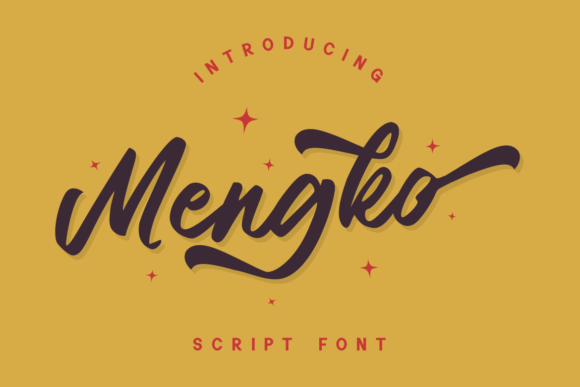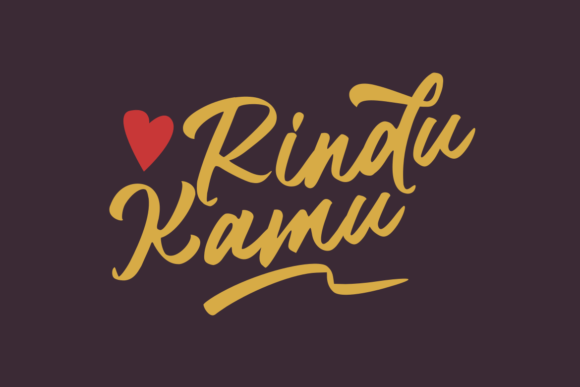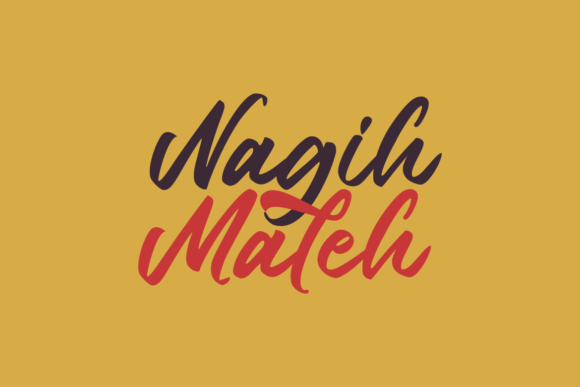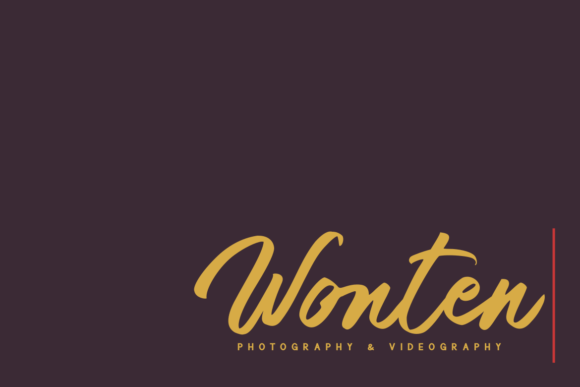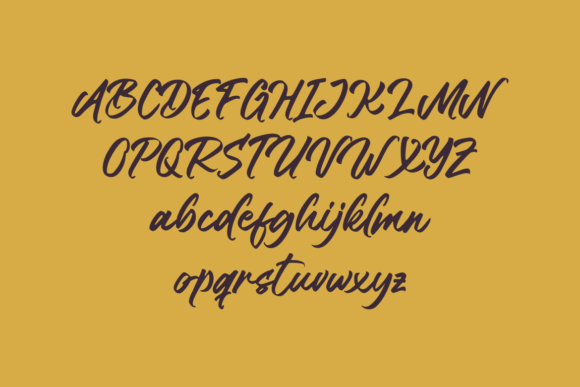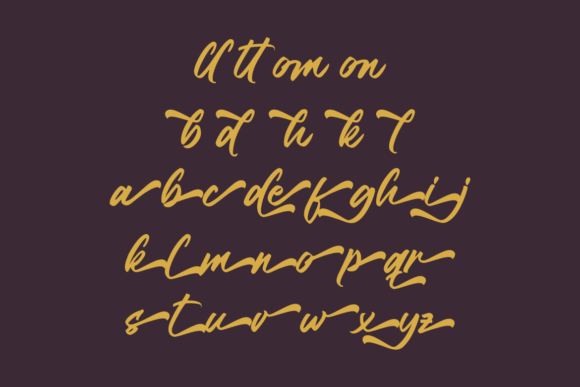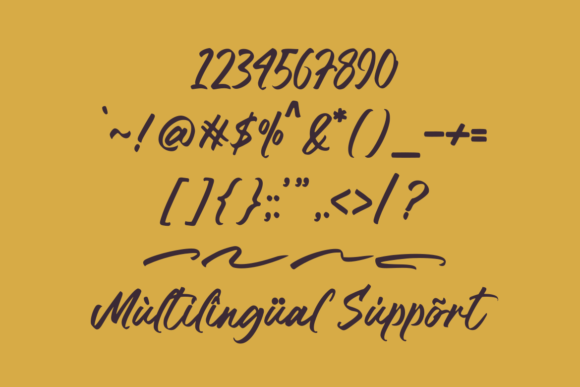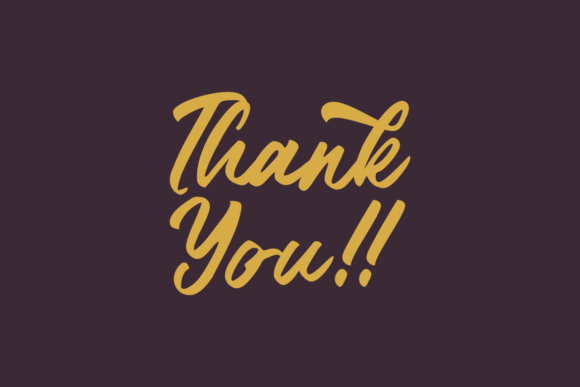
HomeScript FontsMengko Font Script Fonts Mengko Font FacebookTwitterPinterestWhatsApp 1 of 8 Mengko Font Poster 2... Mengko Font Poster 3... Mengko Font Poster 4... Mengko Font Poster 5... Mengko Font Poster 6... Mengko Font Poster 7... Mengko Font Poster 8... About Mengko Font Mengko is a bold and beautifully flowing script font suitable for any projects that require authentic typography. DOWNLOAD NOW People also explored Modern Tattoo Font Super Delicious BTN Open Sea Font Mamat Font Overstability Font Anisa Font Smile Note Font Wanted Signature Font Morthan Blacks Font 160 0 TagsMengko Font Previous articleMatchalica FontNext articleHandesa Mornites Font LEAVE A REPLY Cancel reply Comment: Please enter your comment! Name:* Please enter your name here Email:* You have entered an incorrect email address! Please enter your email address here Website: Save my name, email, and website in this browser for the next time I comment. Personal Use Free Hillgates Personal Use Free Read more about this font Imelda Personal Use Free Read more about this font Rookie Mastering Personal Use Free Read more about this font No Virus Personal Use Free Read more about this font BLOG Transform Your Website: Elevate Your Typography with 7 Best Web Font Generators Are you ready to transform your website's typography from ordinary to extraordinary? Great! Today, we're diving into the world of web font generators, which... To increase your work productivity, choose the most readable fonts. Where to Buy American Fonts Online in 2024 Free vs Paid Fonts: Why Investing in Premium Fonts Is Worth It